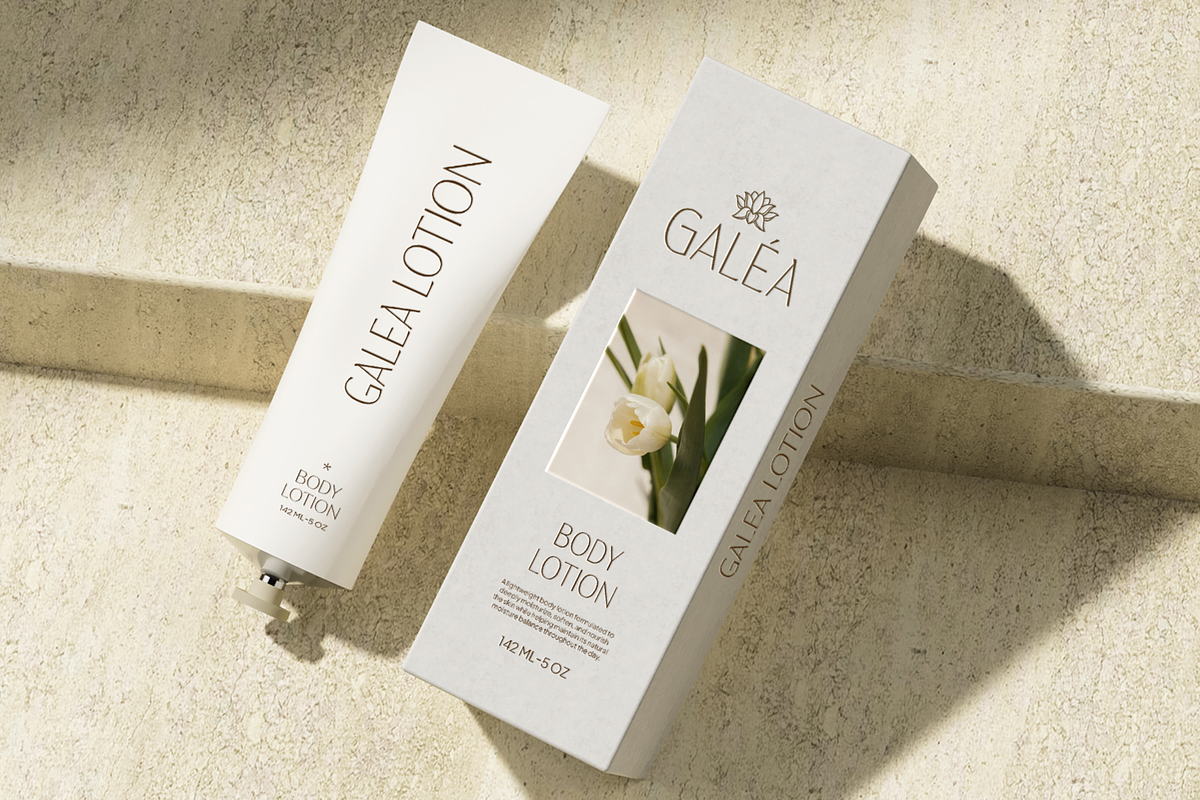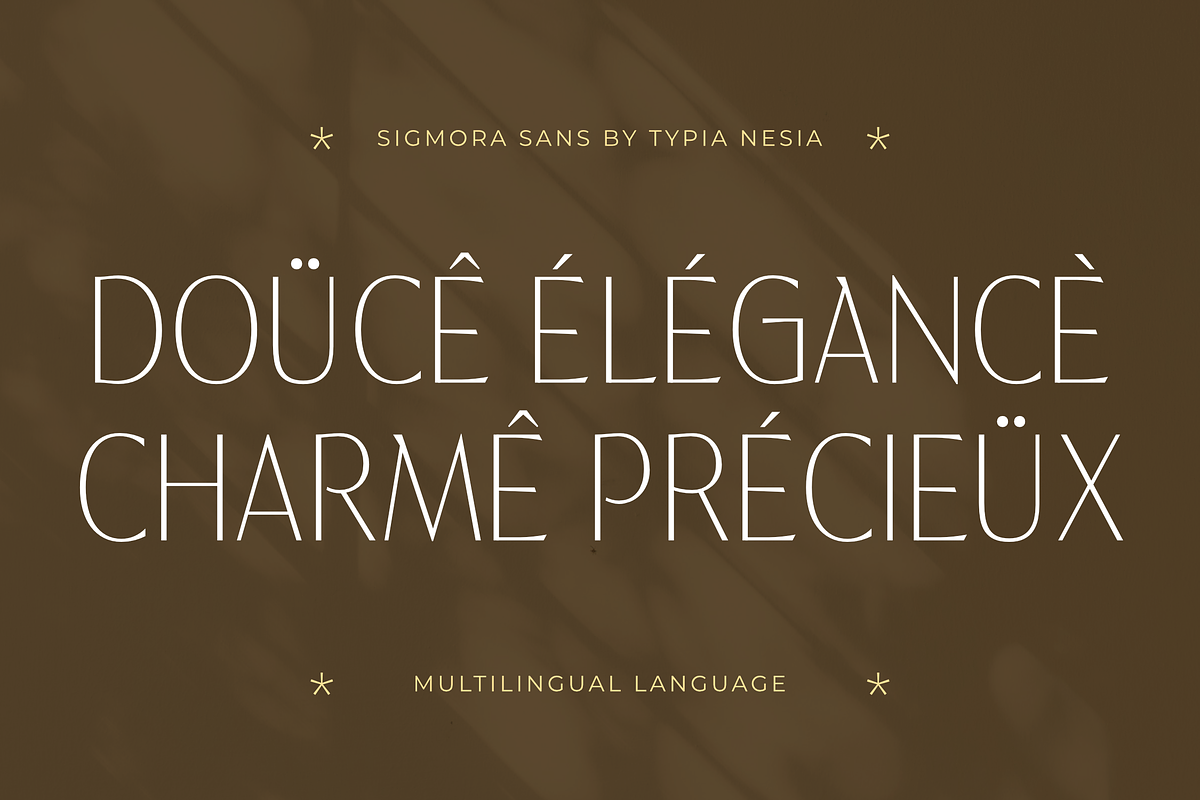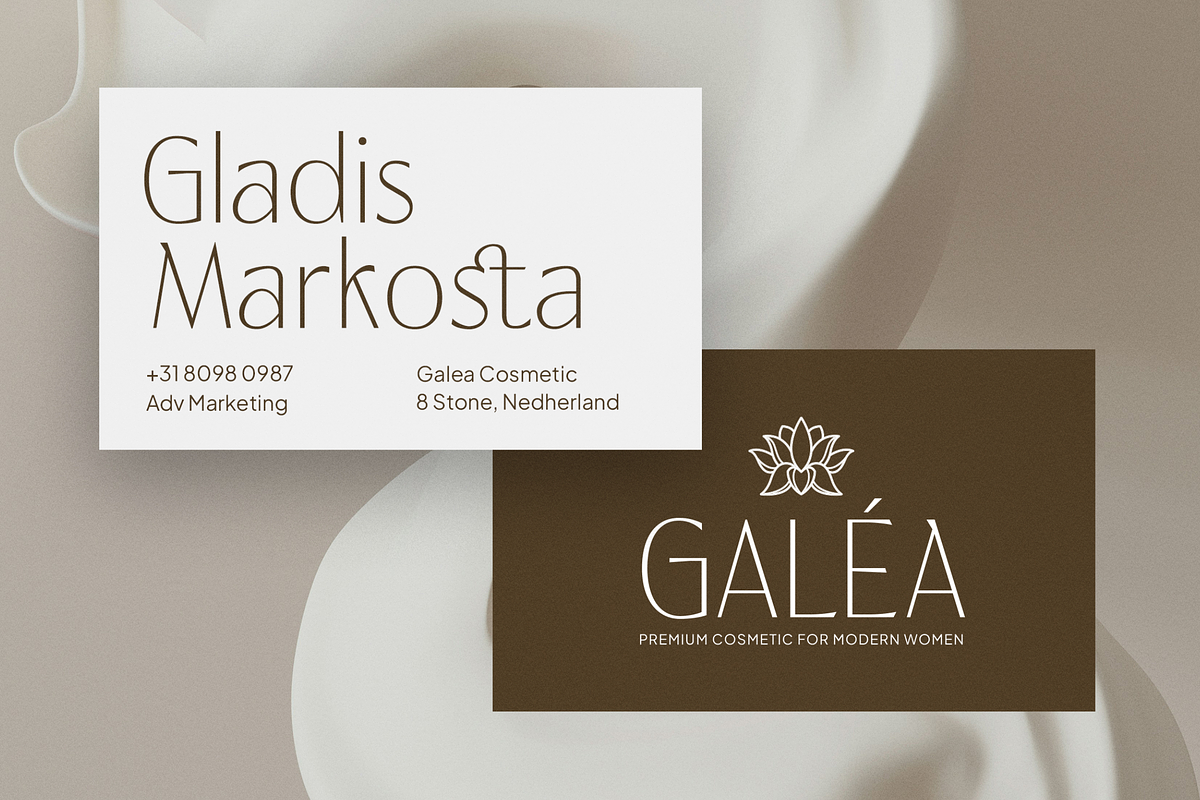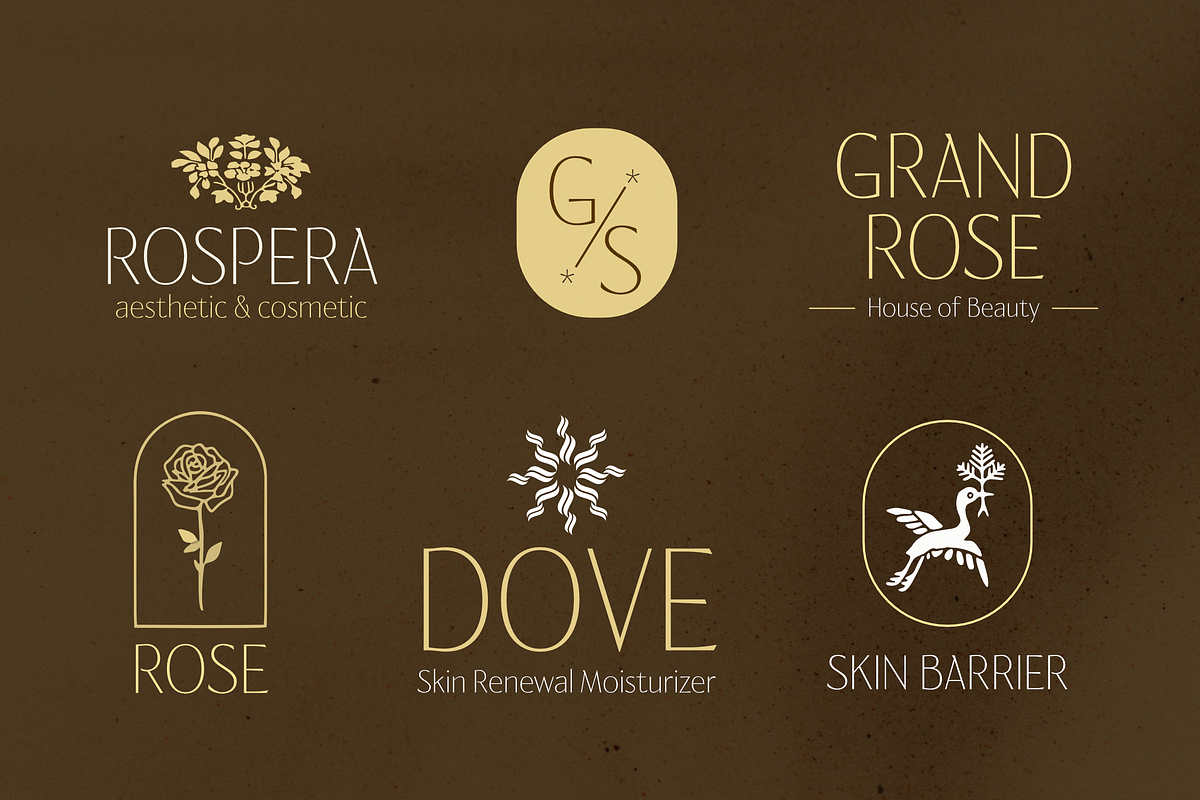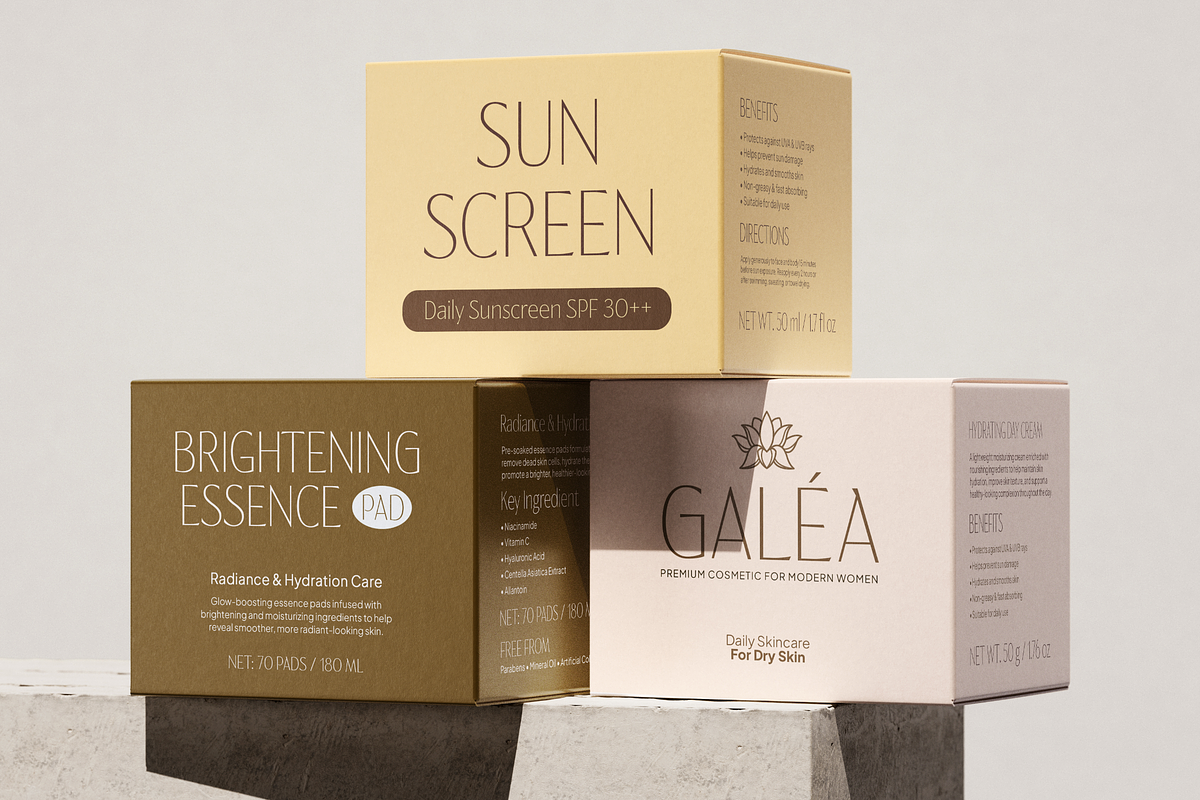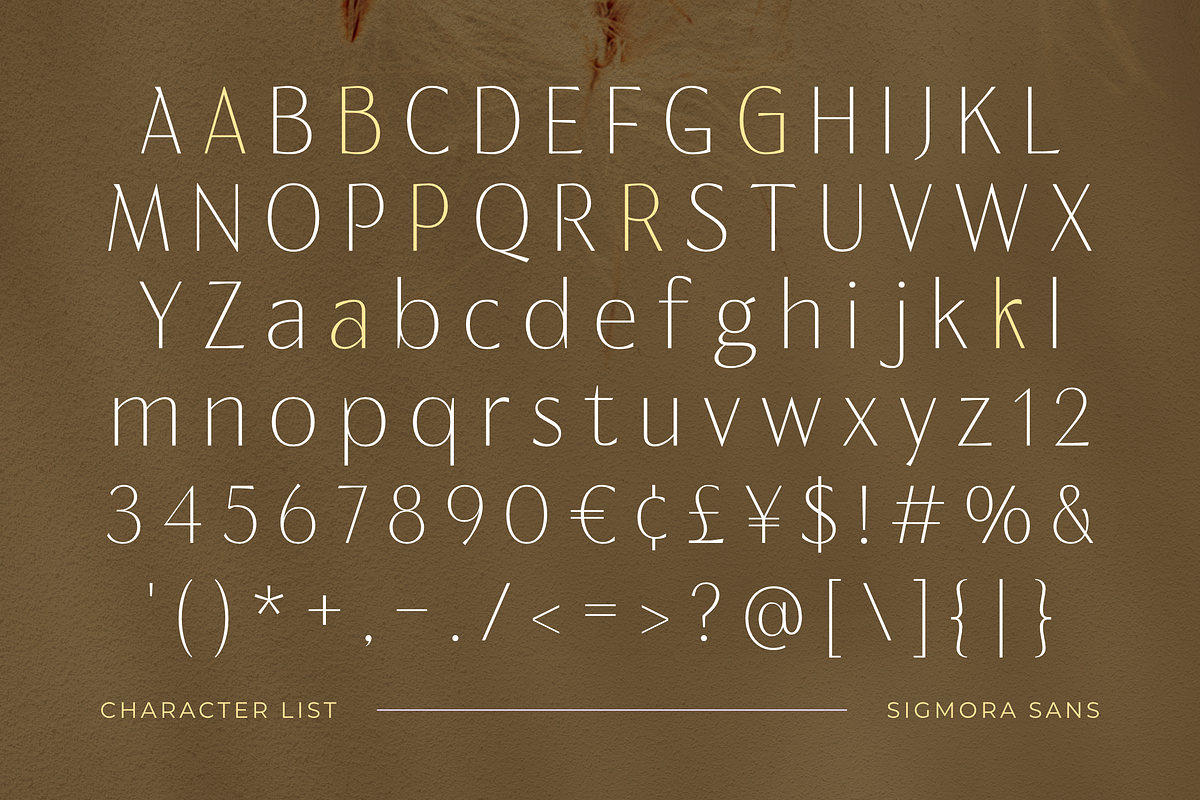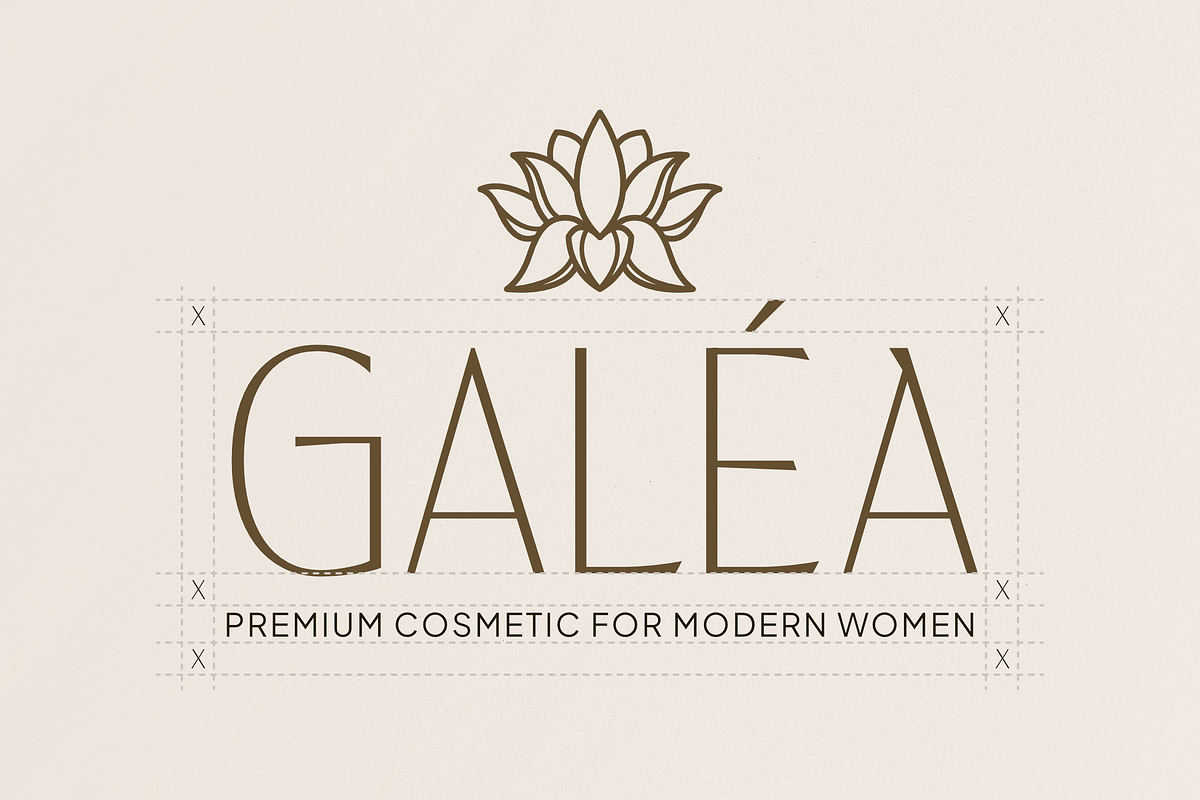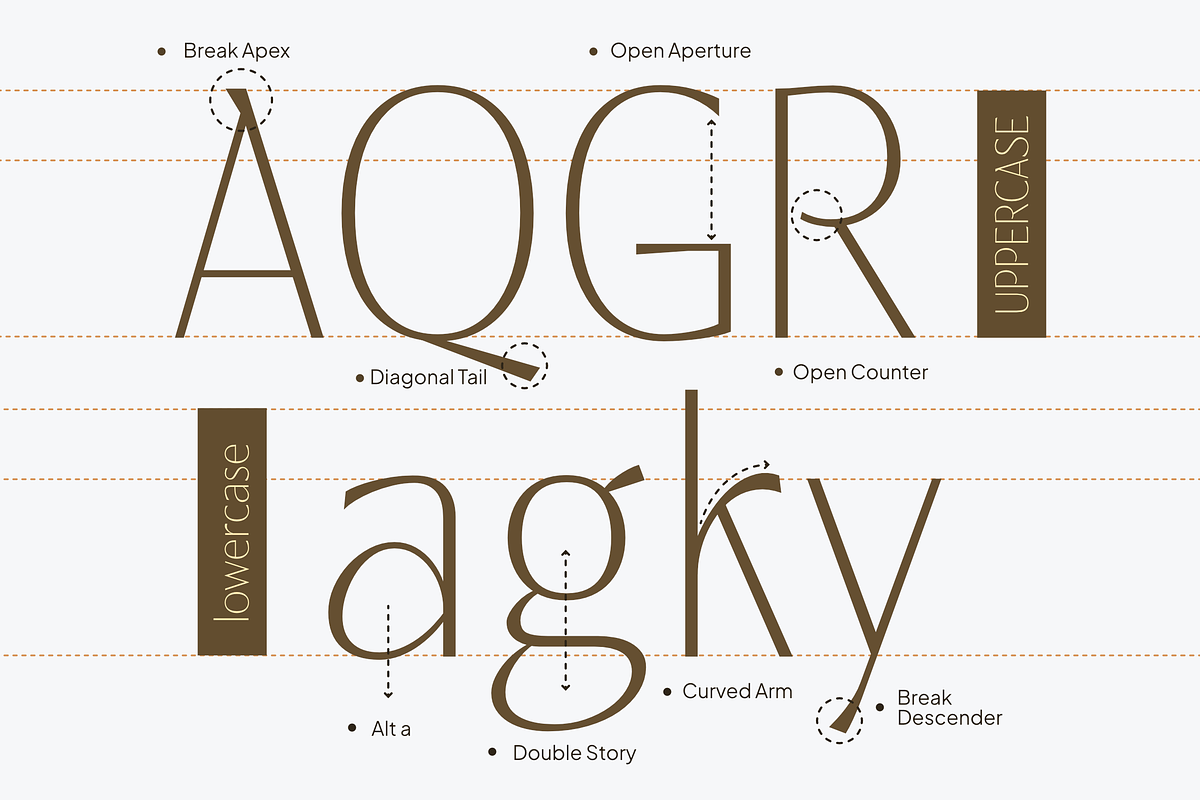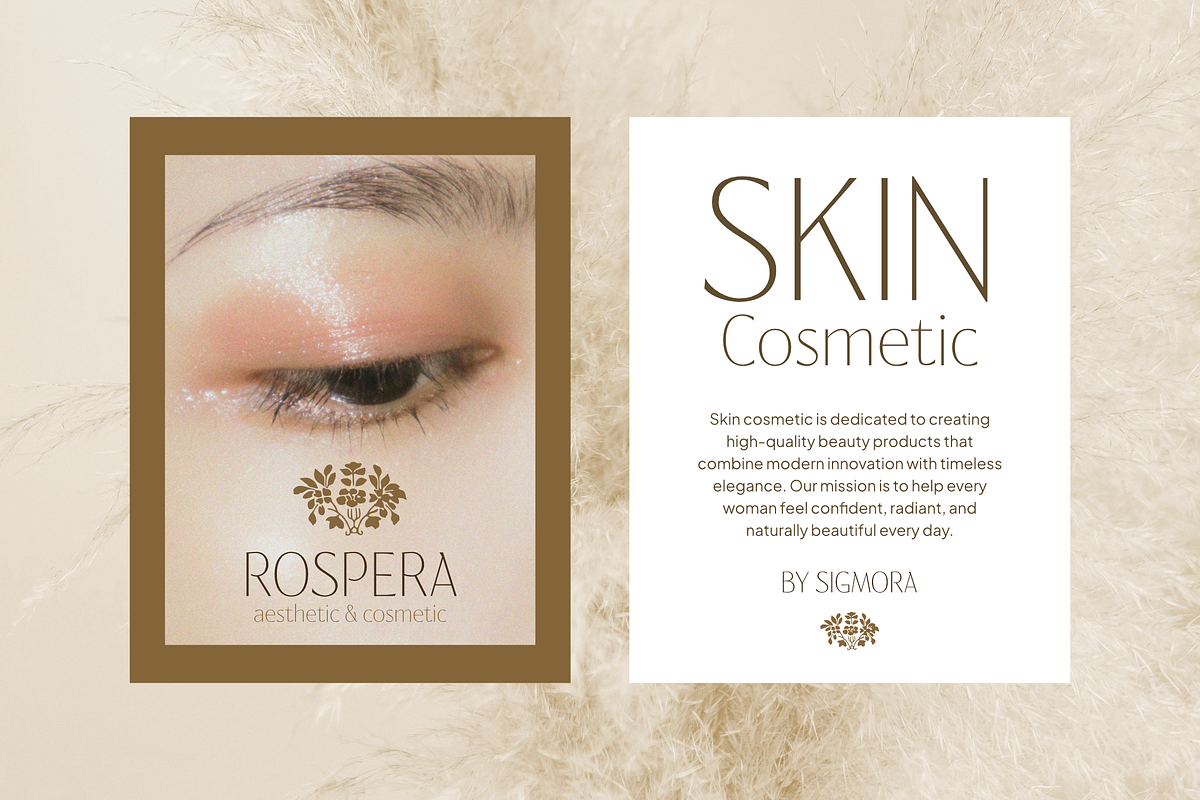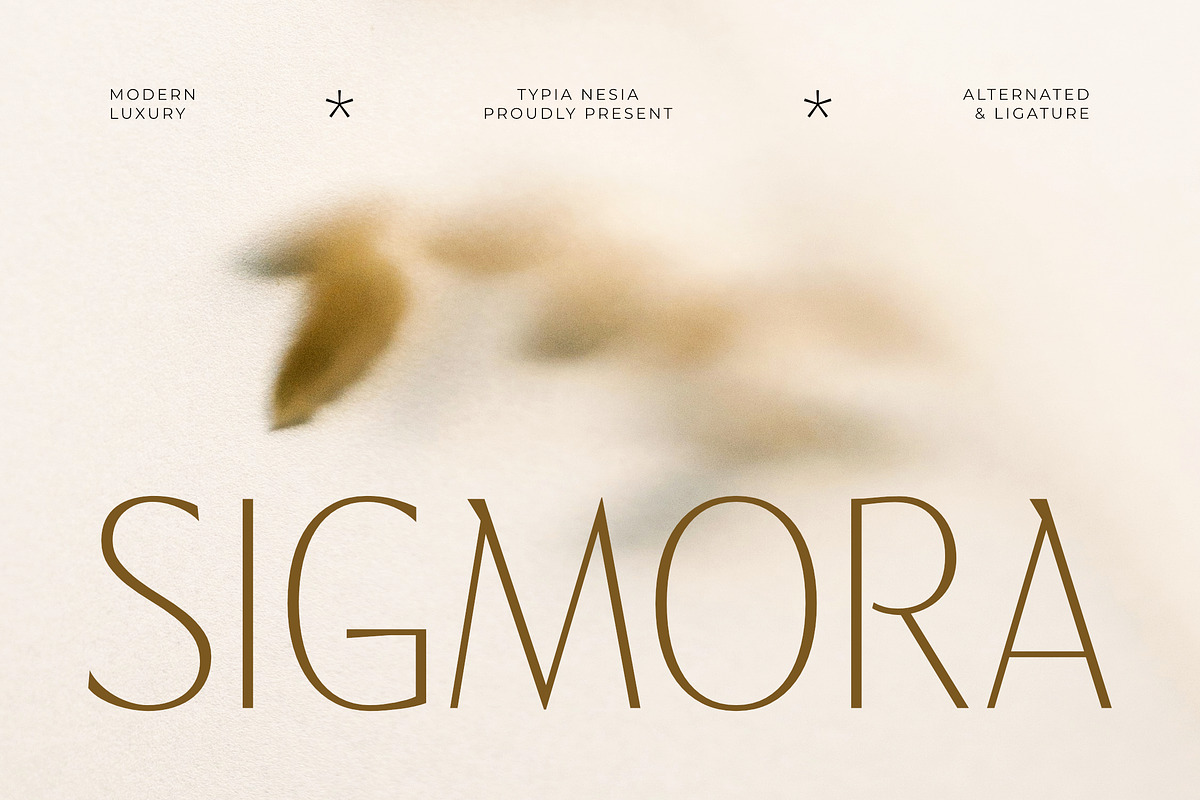
Sigmora - Modern Elegant Thin Sans
Sigmora - Modern Luxury Elegant Thin / Light Sans Serif Font
Sigmora is a modern luxury sans serif font featuring refined proportions, elegant contrast, and beautifully crafted alternates and ligatures. Designed to elevate sophisticated visual identities, it delivers a graceful and premium impression that stands out across luxury branding, editorial layouts, and high-end marketing materials.
Perfect for fashion labels, beauty products, perfume branding, wedding invitations, boutique businesses, magazines, premium packaging, lifestyle brands, and luxury websites. It features alternates, ligatures, multilingual support, numerals, and punctuation, making it versatile and easy to use across a wide range of design needs.
Bring timeless sophistication and contemporary luxury to every design with Sigmora.